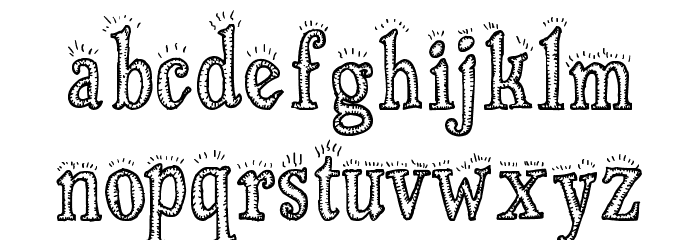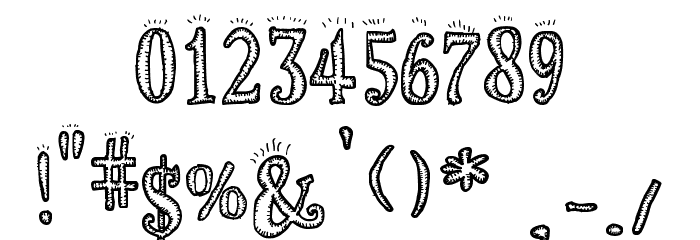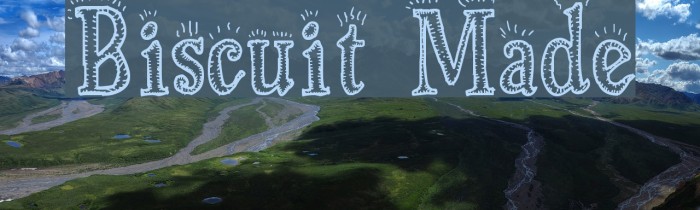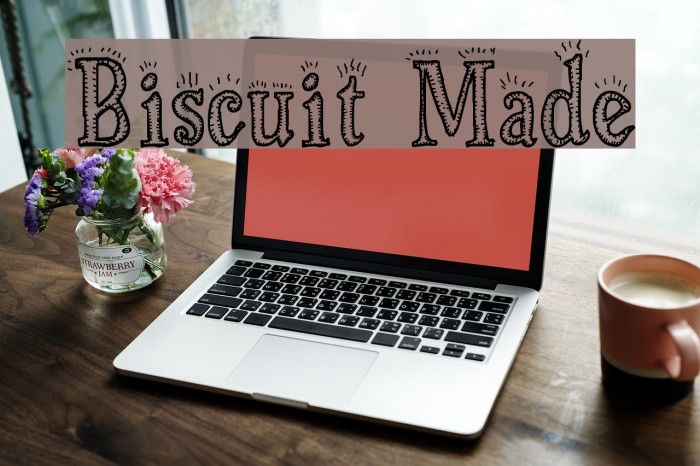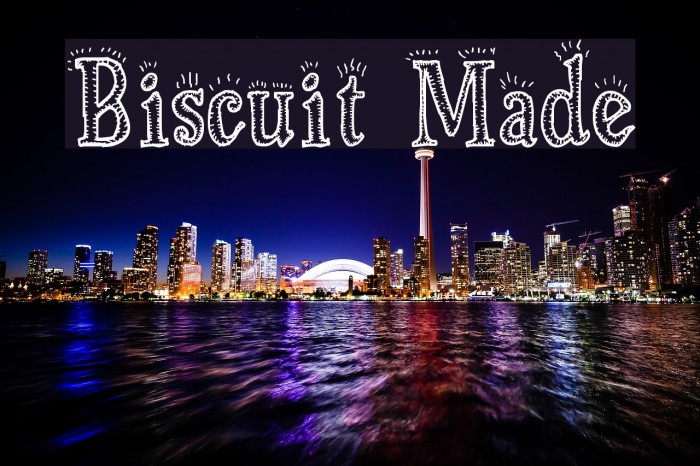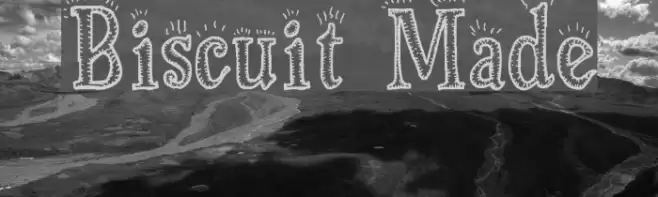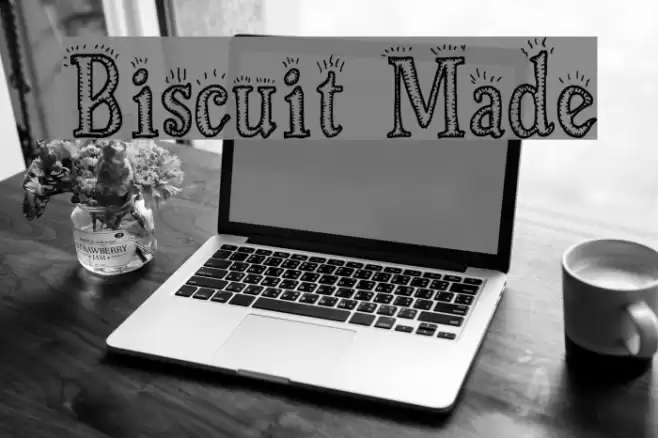
Biscuit Made Font
This font features a playful and whimsical design, characterized by its decorative elements and hand-drawn appearance. Each letter is adorned with small, illustrative details that give it a unique, textured look, reminiscent of doodles or sketches. The strokes are uneven, adding to its charm and informal style. The font maintains a consistent height across characters, ensuring readability while still embracing its quirky aesthetic. Its distinct personality makes it suitable for creative and fun projects, where a touch of individuality is desired.
A playful, hand-drawn font with decorative, textured details.
- Proposed Projects: Ideal for children's books, greeting cards, playful branding, and creative posters.
- Overall Style: Whimsical, Playful, Hand-drawn
- Use Case: Headlines, Logos, Creative projects